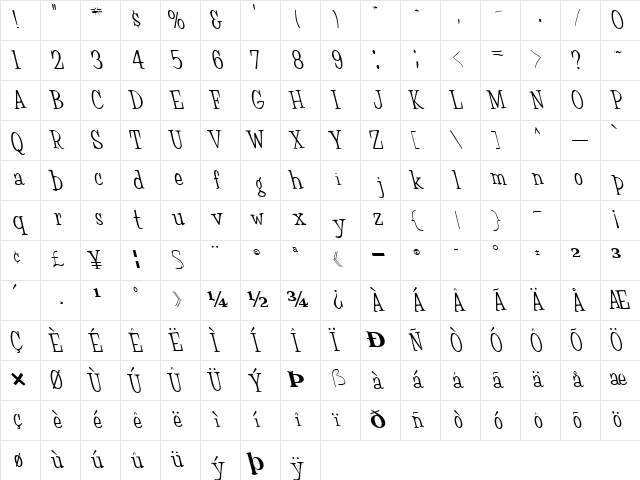
DisCardedWriting85 Regular
DisCardedWriting85 Family
Complete DisCardedWriting85 Regular glyph index. Displaying only characters natively supported by DisCardedWriting85 Regular font.
Design Context for DisCardedWriting85
DisCardedWriting85 is a composed and adaptable typeface that performs quietly and consistently across a wide range of design contexts.